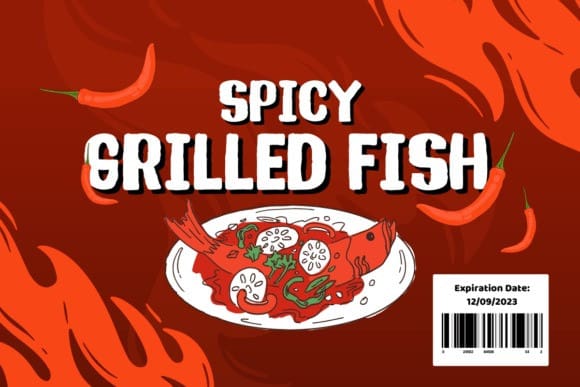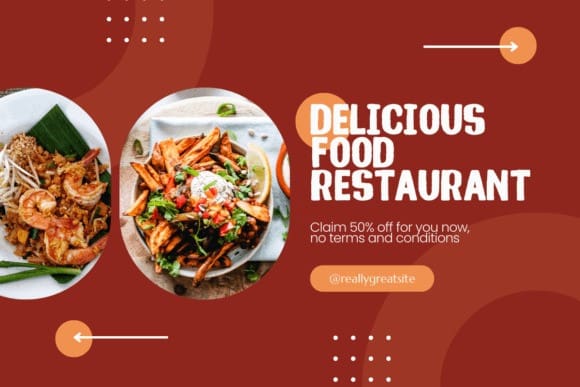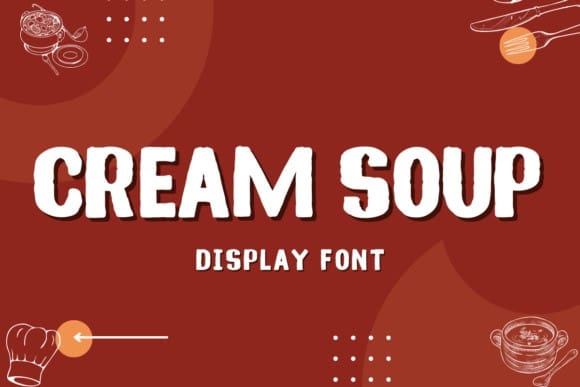
Cream Soup Display Font
Cream Soup Display Font is a display brush font. It’s perfect for logos, branding, title, social media posts, advertisements, product packaging, product designs, labels, photography, watermarks, special events, magazines, web designs, etc.